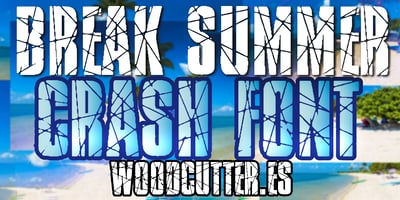
Break Summer
Break Summer font
Break Summer Font Family was designed by Jordi Manero and published by Woodcutter. Break Summer contains 1 styles and family package options. “Break Summer” is an uppercase font that appears to be made of glass, shattered into a thousand pieces. Each letter is completely broken and cracked, creating a striking and dramatic visual effect. The accents are also present, seamlessly integrating with the broken and fragmented style of the font. Ideal for projects aiming to convey a sense of fragility, breakage, or chaos, this typeface is perfect for posters, covers, and any design needing a strong and memorable visual impact.–Uppercase